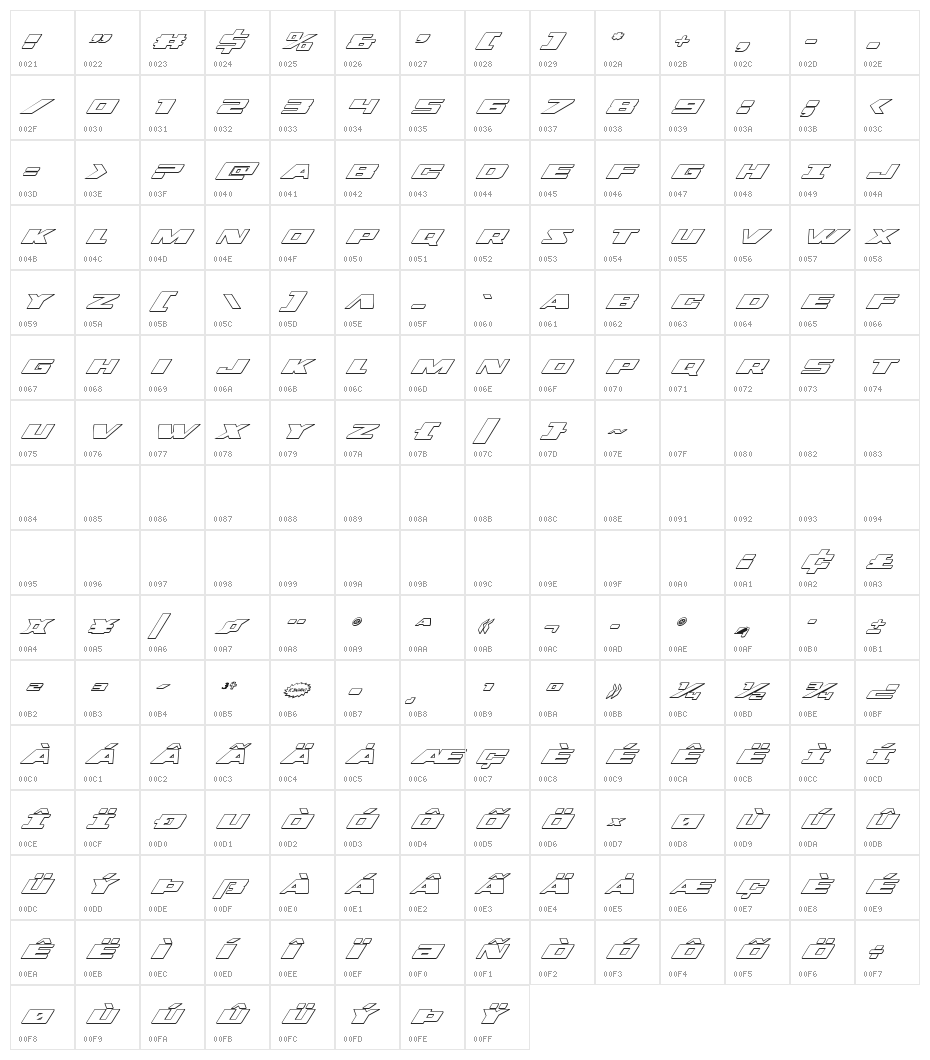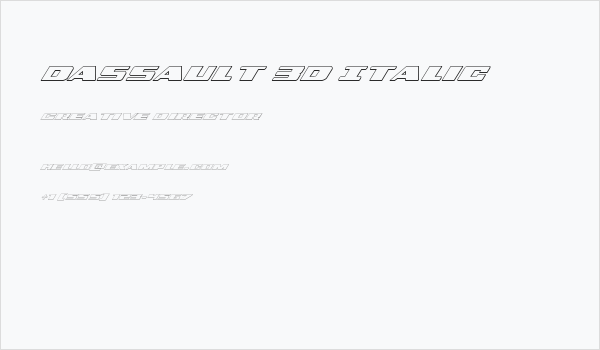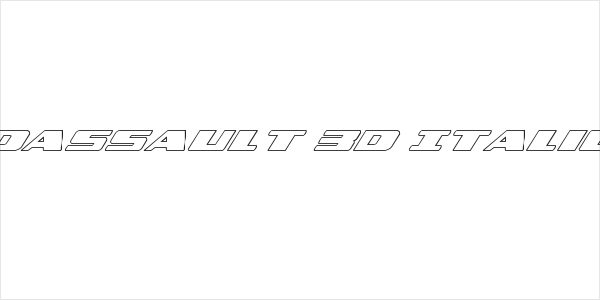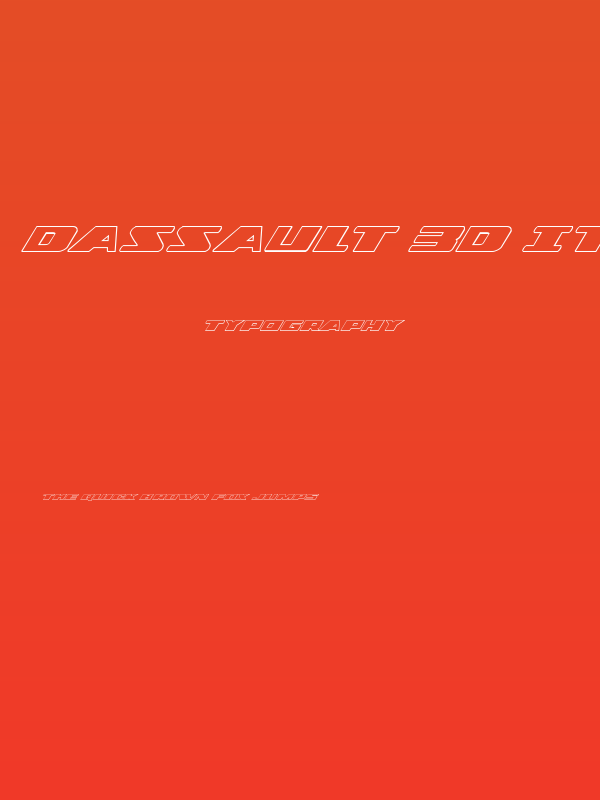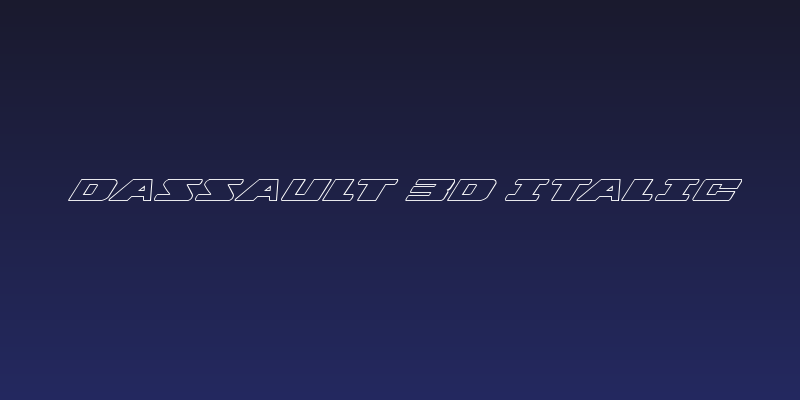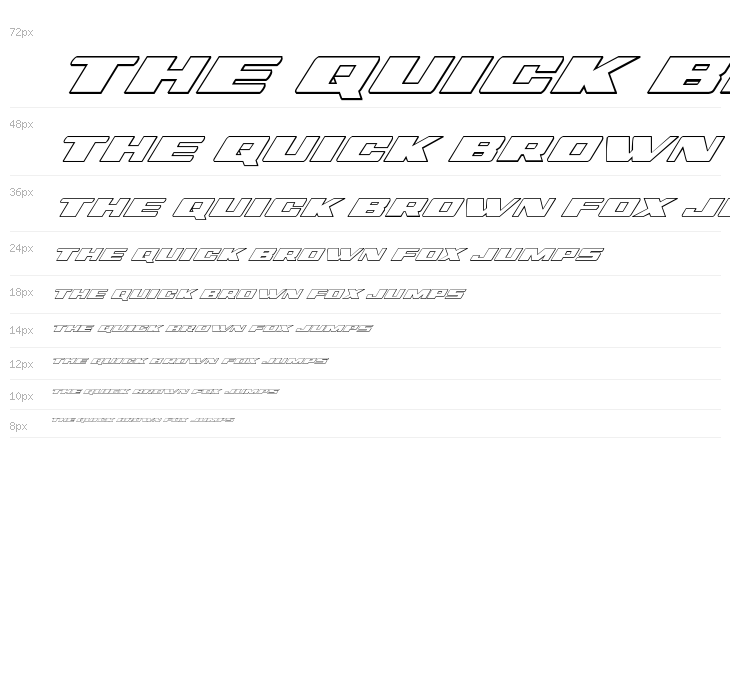
Dassault 3D Italic Font
Dassault 3D Italic Description
This font features a bold, three-dimensional design with a distinct italic slant, giving it a dynamic and futuristic appearance. The characters are outlined, creating a sense of depth and movement. The geometric shapes and sharp angles contribute to its modern aesthetic, making it stand out in any design. The uppercase letters are particularly striking, with a consistent width and height that maintain readability while adding a unique flair. The numbers and special characters follow the same design principles, ensuring a cohesive look across all text elements.
| Proposed Projects | Ideal for projects requiring a modern and eye-catching typeface, such as technology branding, video game titles, or sci-fi themed posters. |